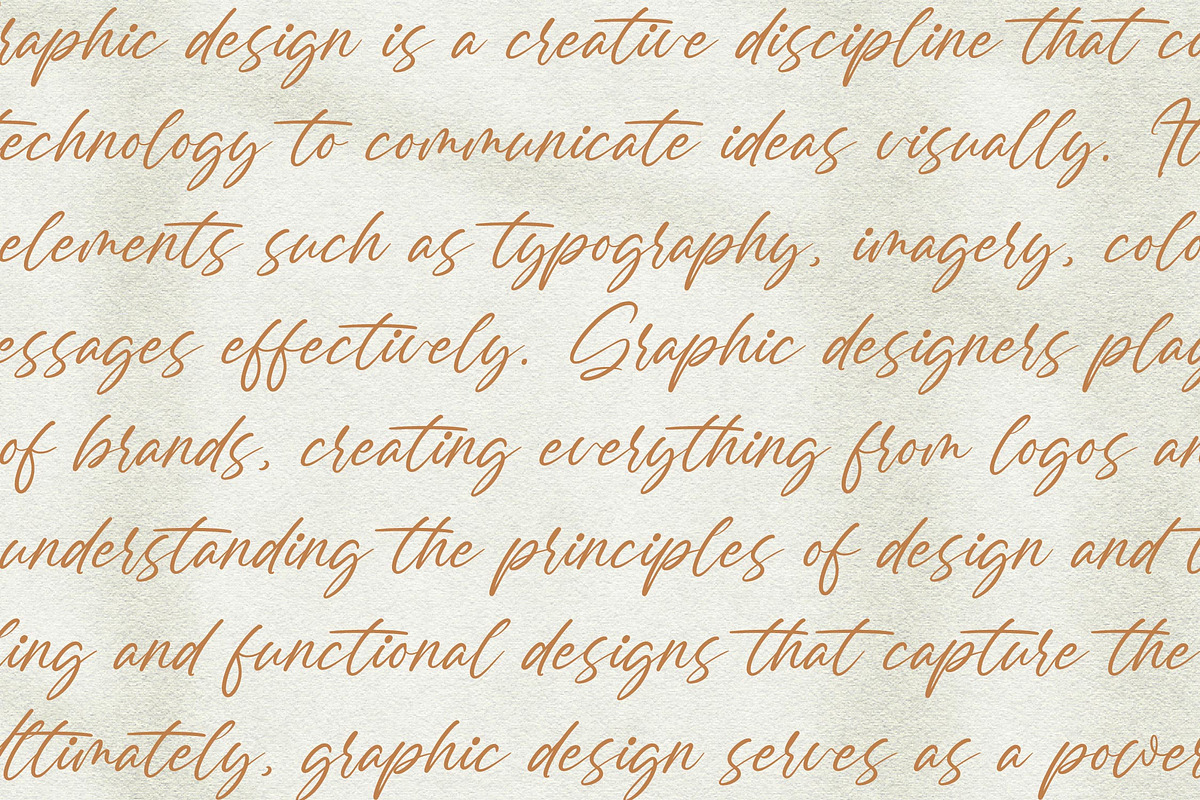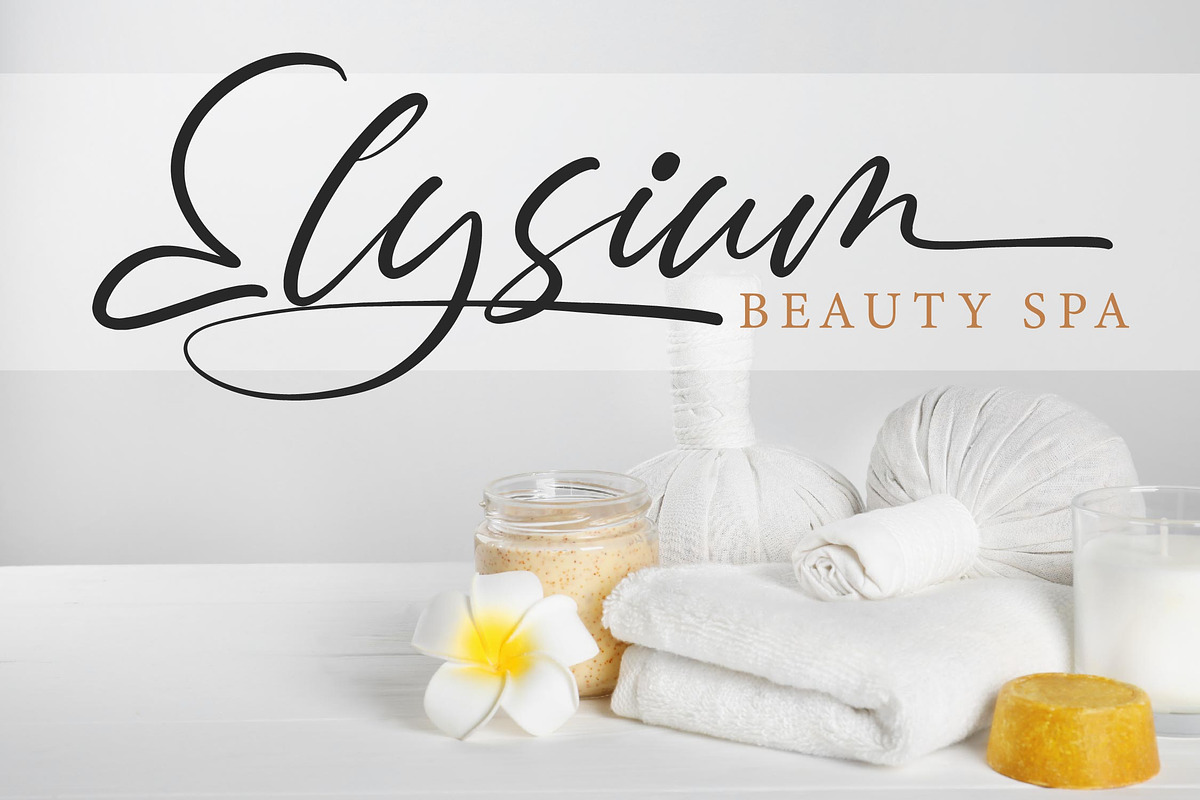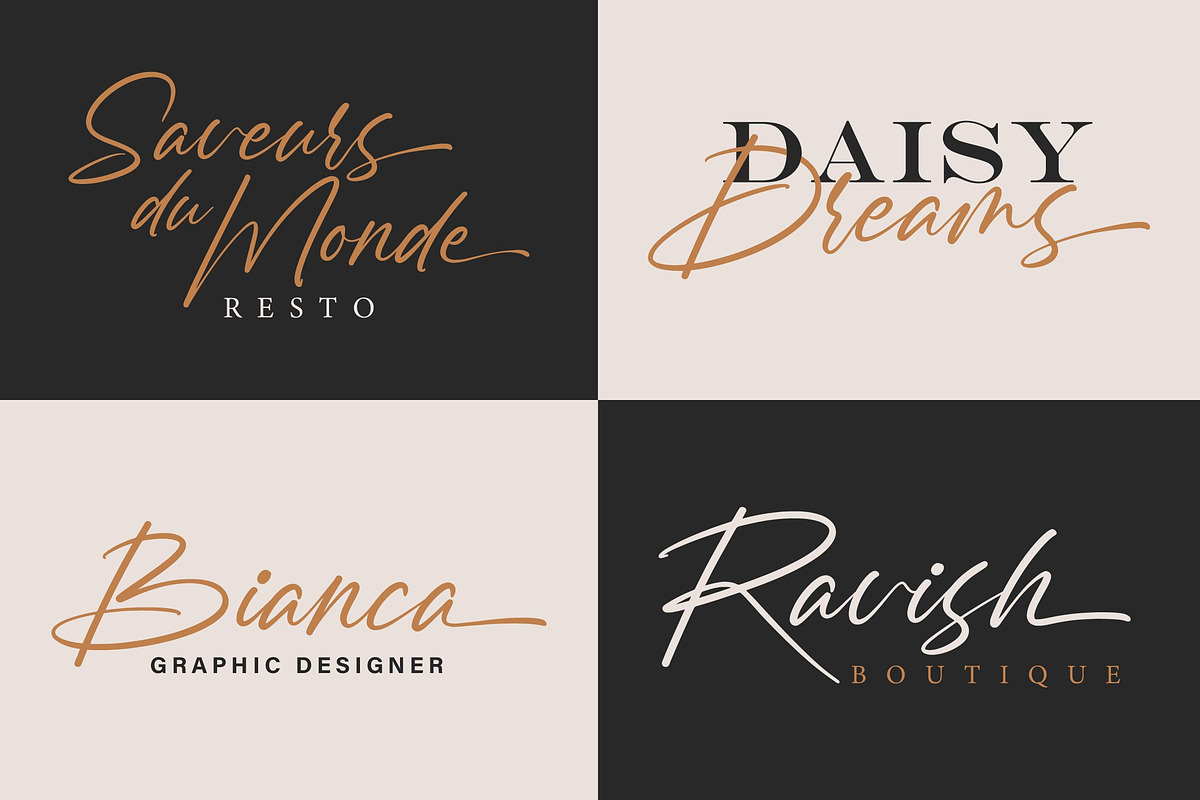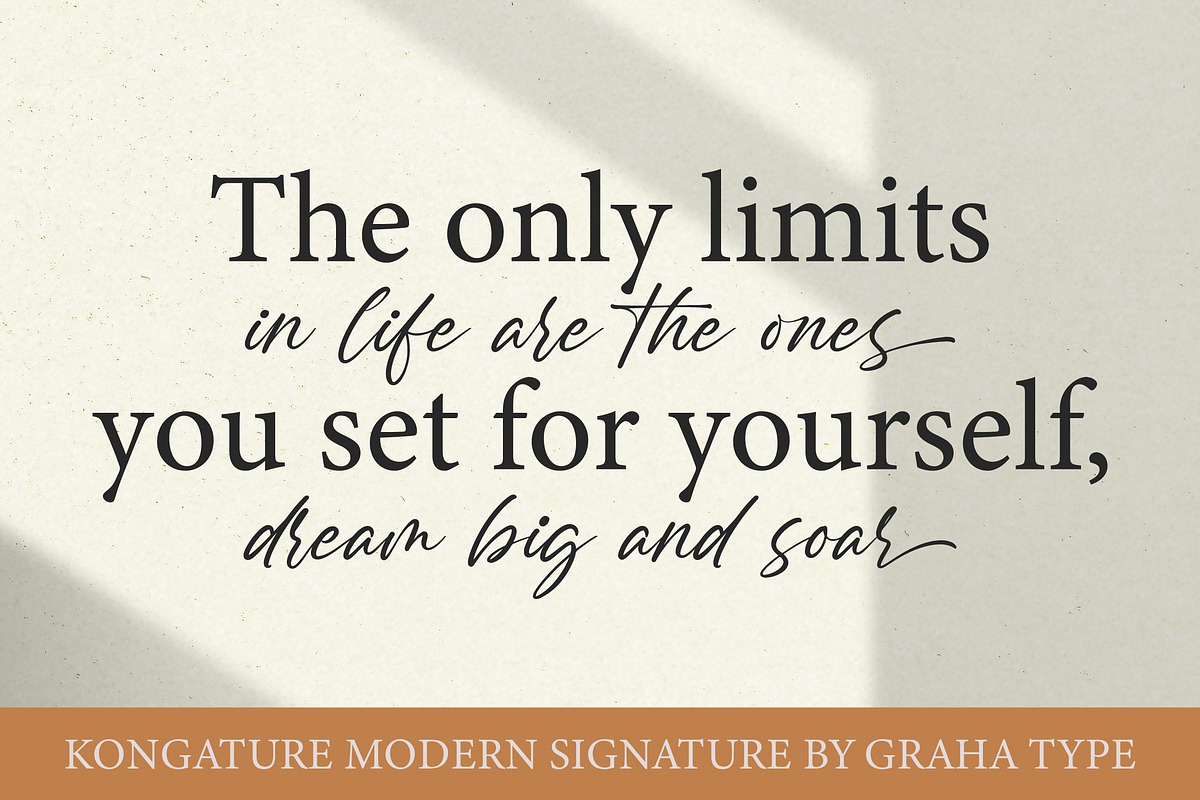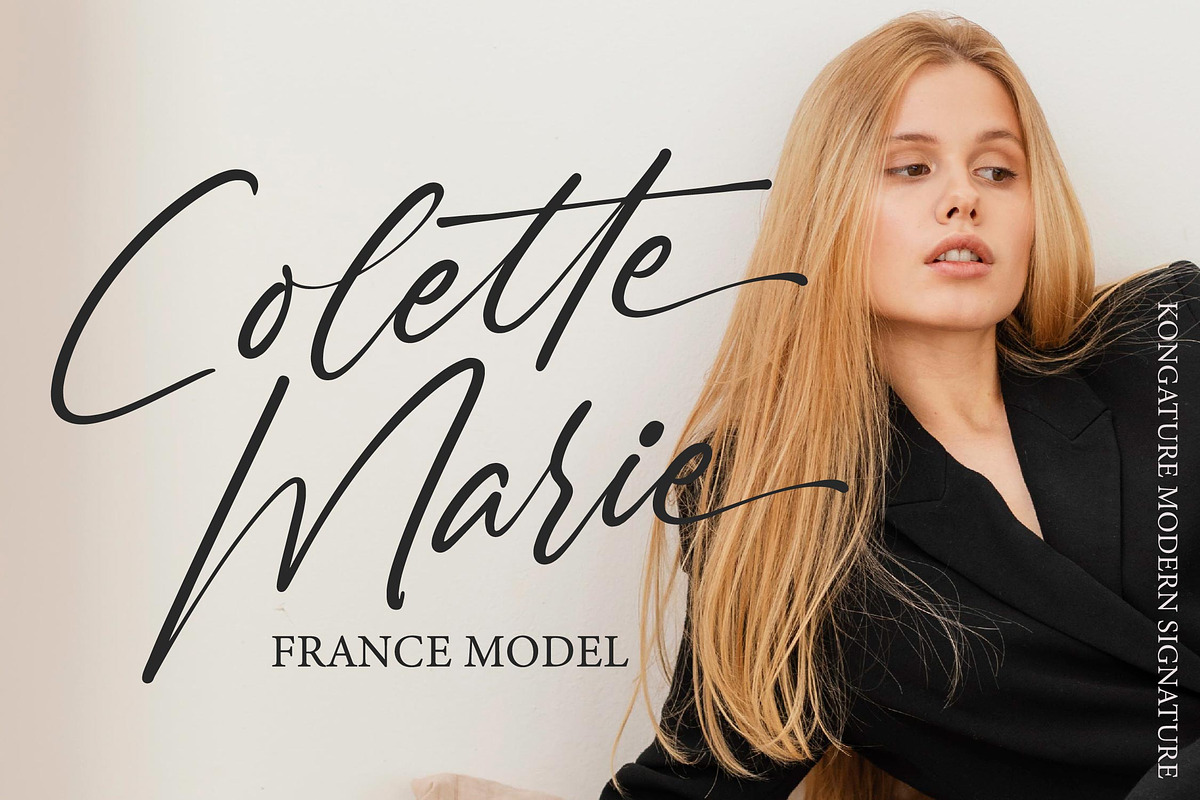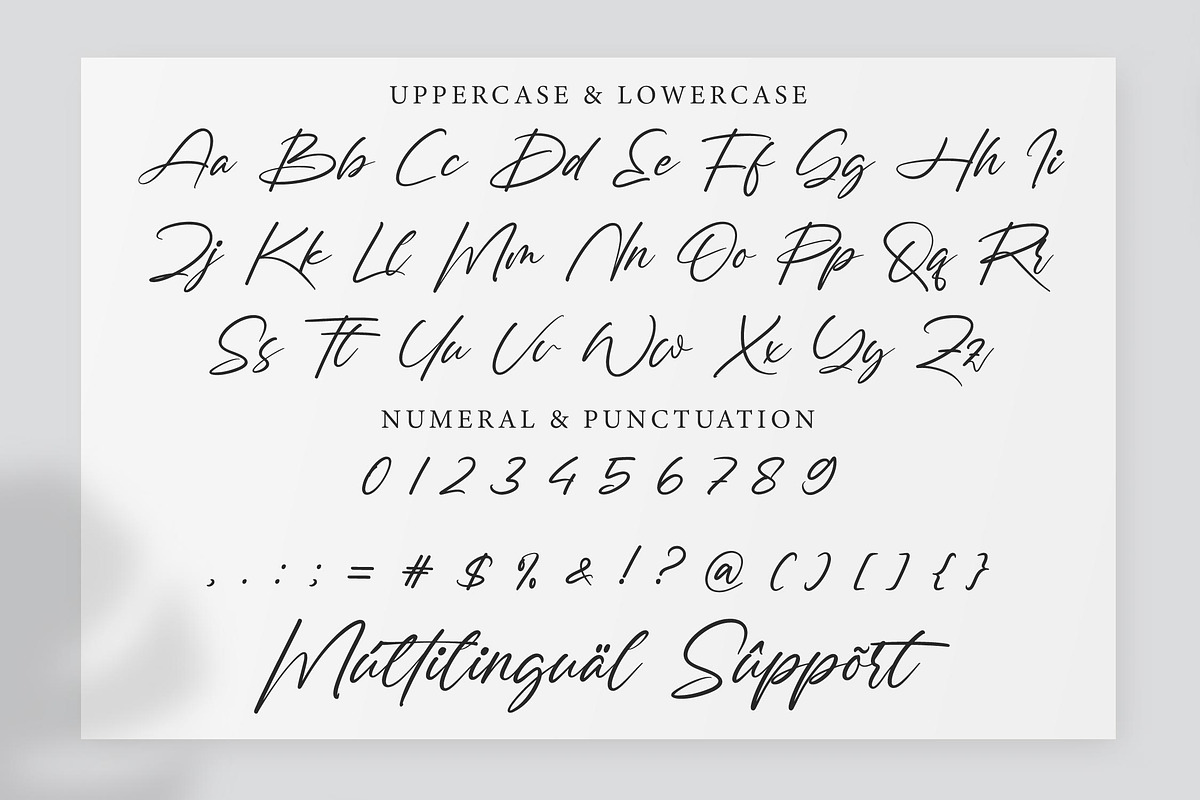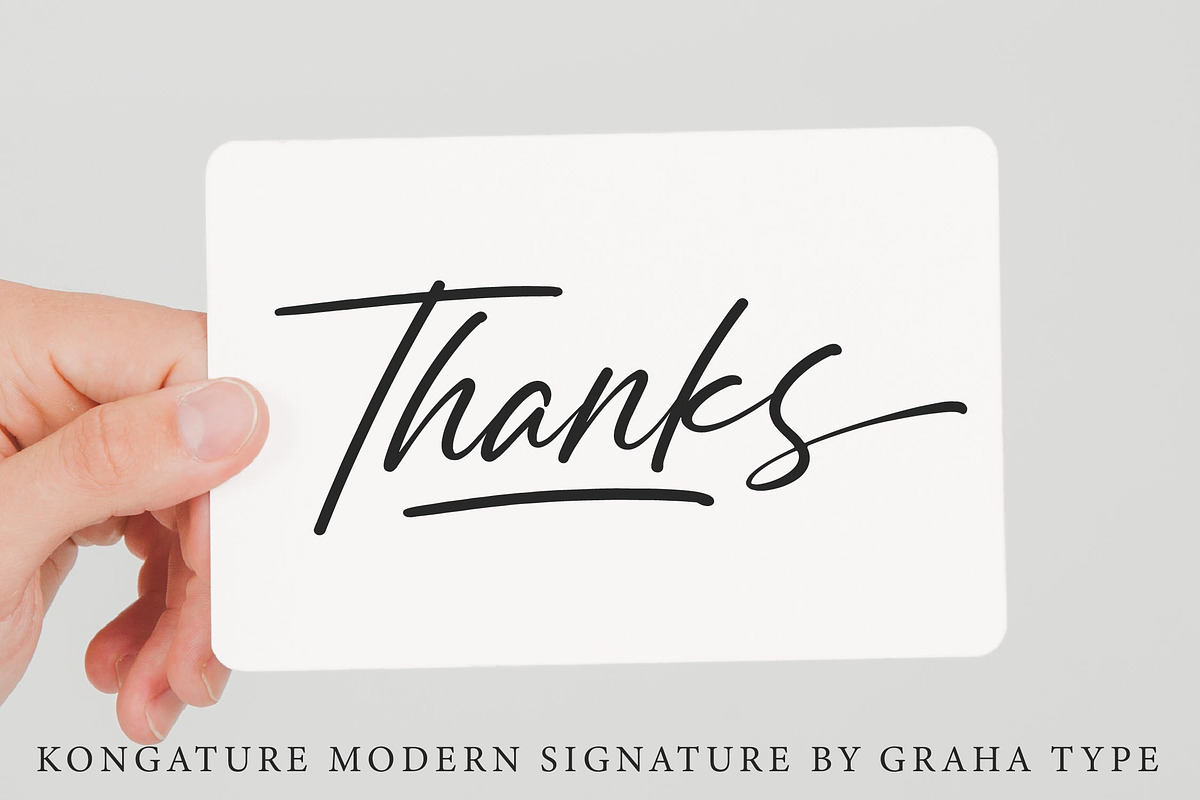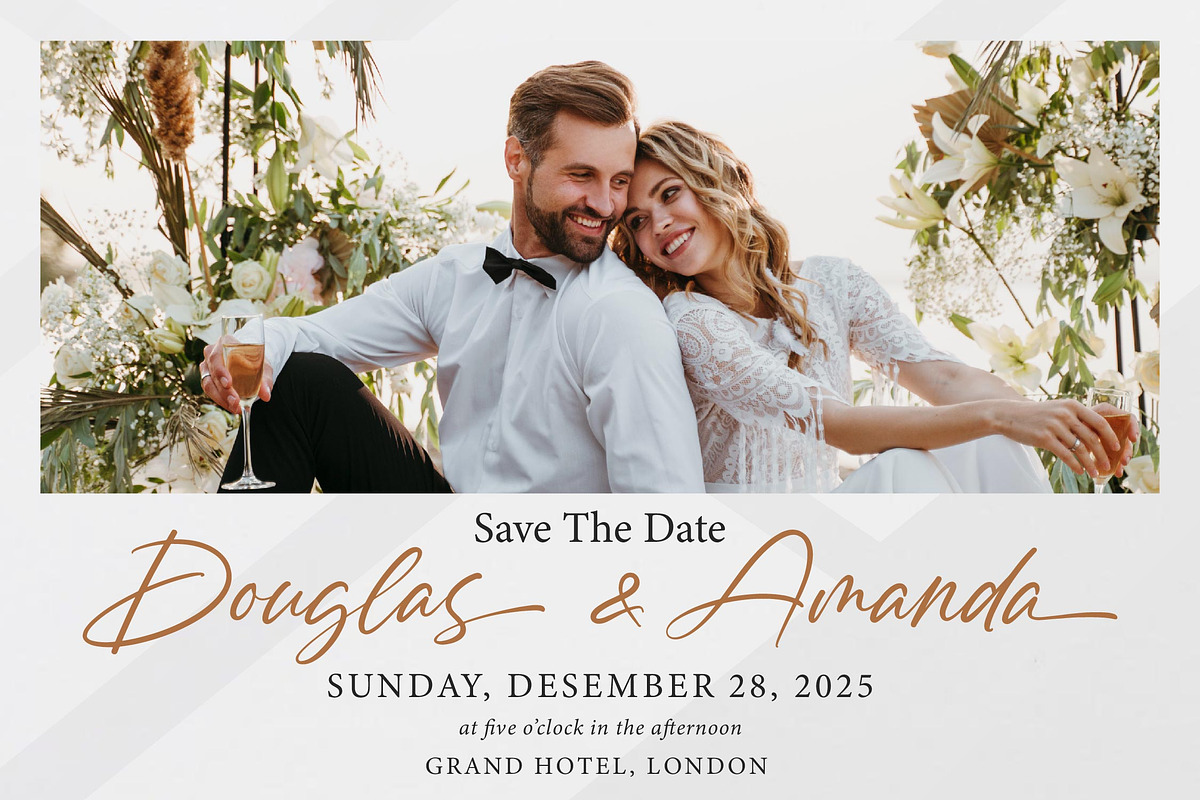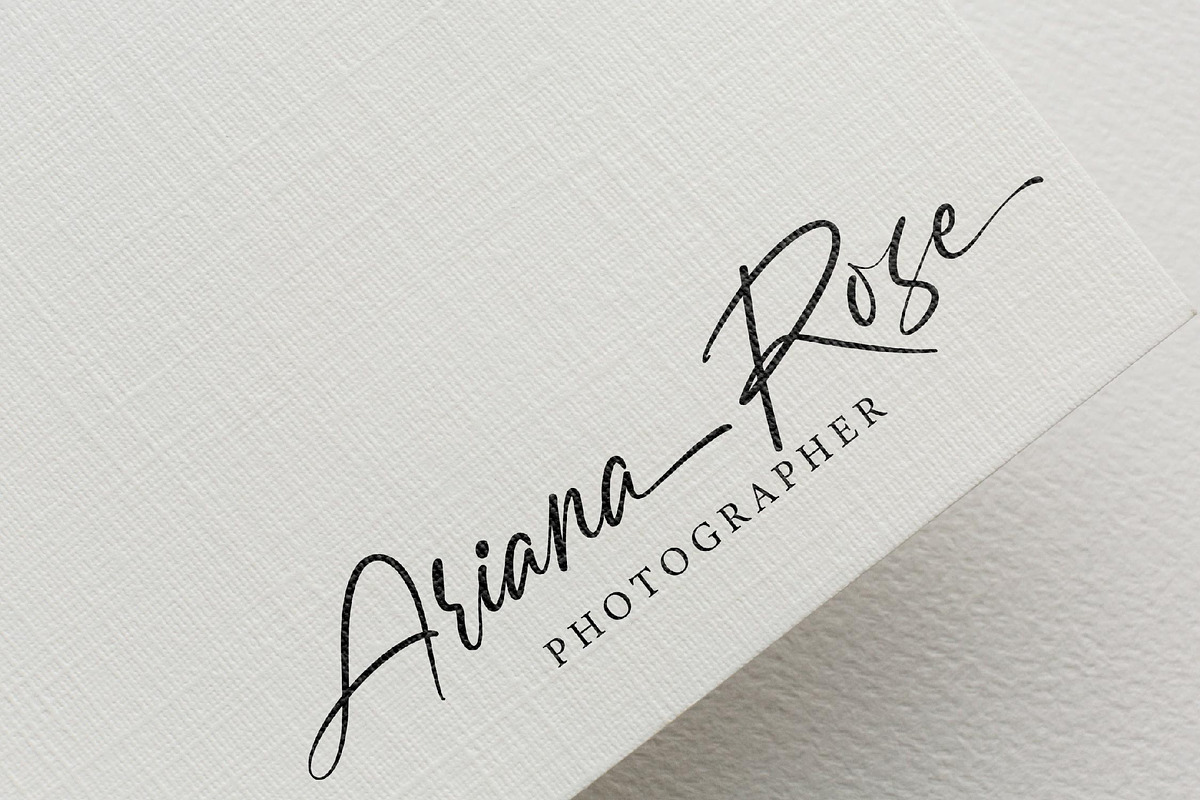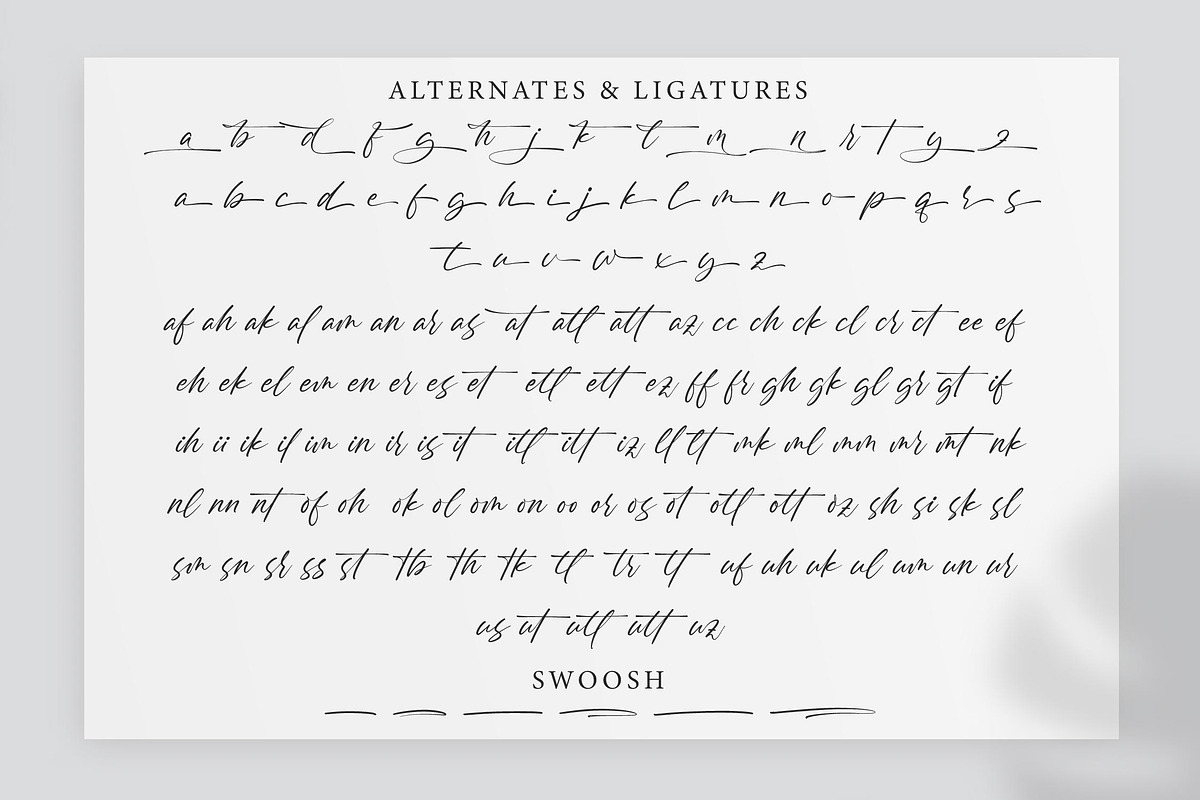
Kongature - Modern Signature
Kongature is a modern signature font that exudes a stylish and unique flair with every stroke. Its dynamic design and free flowing curves create a fresh and contemporary feel. Perfect for a variety of design needs, from invitations to branding, Kongature adds an elegant personal touch. Despite its strong character, the font maintains excellent readability, making it an ideal choice for headlines or logos. The blend of sophistication and personality in Kongature makes it the perfect option for designers looking to create eye catching and memorable work.